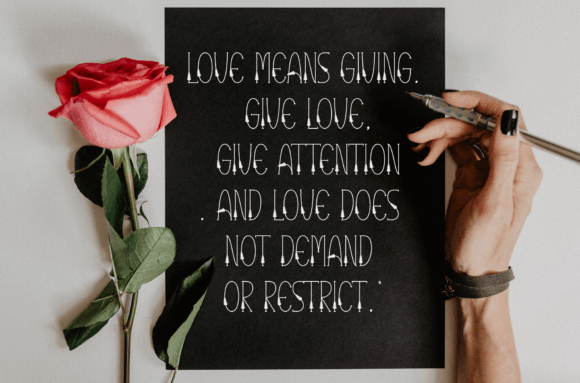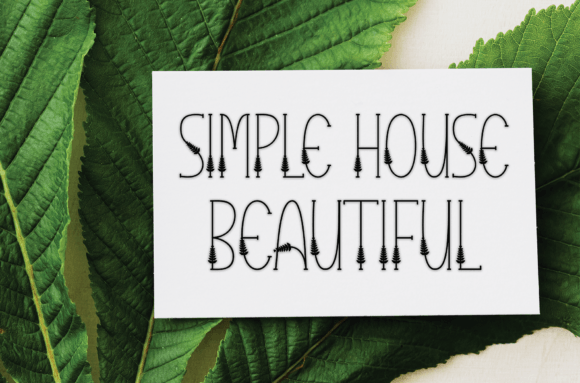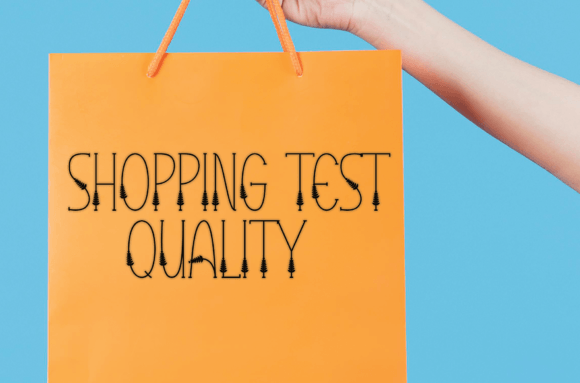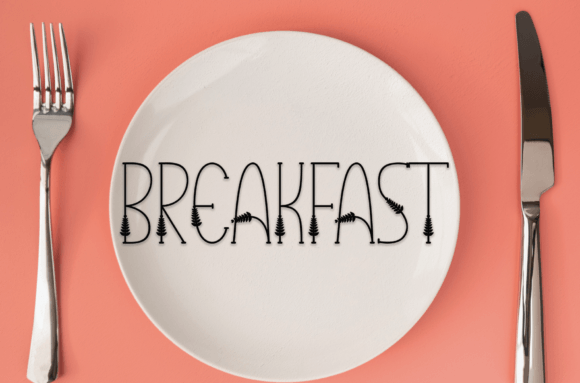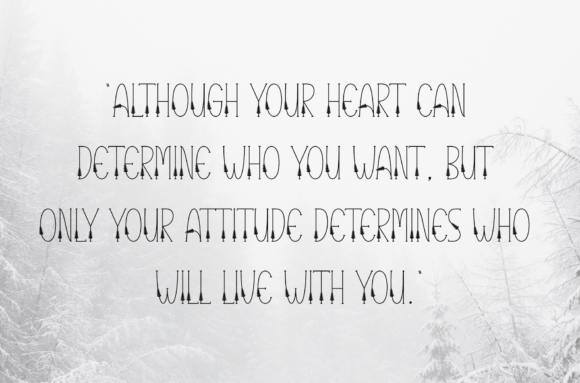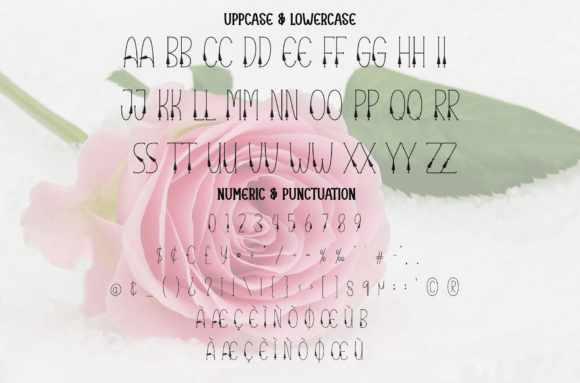
Introducing Beautiful Font: The Sweet and Friendly Handwritten Decorative Font
Are you looking for a font that can add a touch of sweetness and friendliness to your designs? Look no further than Beautiful Font, a stunning handwritten decorative font that’s perfect for a variety of creative projects. In this article, we’ll explore the features and benefits of Beautiful Font, and show you how it can elevate your designs to the next level.
What is Beautiful Font?
Beautiful Font is a beautiful, sweet, and friendly handwritten decorative font that’s designed to bring a touch of fun and playfulness to your designs. With its fresh and neat style, this font is ideal for writing wedding invitations, cards, or any other design that might need a personal and whimsical touch.
Key Features of Beautiful Font
- Handwritten style: Beautiful Font has a lovely handwritten style that’s perfect for creating personal and unique designs.
- Sweet and friendly: This font has a warm and inviting feel that’s sure to make your designs stand out.
- Fresh and neat: The clean and crisp lines of Beautiful Font make it easy to read and perfect for a variety of design applications.
- Versatile: This font can be used for a wide range of design projects, from wedding invitations and cards to posters, flyers, and more.
Benefits of Using Beautiful Font
So why choose Beautiful Font for your next design project? Here are just a few benefits of using this lovely font:
- Adds a personal touch: With its handwritten style, Beautiful Font can add a personal and unique touch to your designs.
- Perfect for special occasions: This font is ideal for wedding invitations, birthday cards, and other special occasion designs.
- Easy to read: The clean and crisp lines of Beautiful Font make it easy to read, even at small sizes.
- Versatile: This font can be used for a wide range of design applications, from digital designs to print materials.
Design Ideas Using Beautiful Font
So what can you create with Beautiful Font? Here are a few design ideas to get you started:
- Wedding invitations: Use Beautiful Font to create stunning wedding invitations that set the tone for a beautiful and memorable wedding day.
- Birthday cards: Create personalized birthday cards with Beautiful Font that are sure to delight the birthday boy or girl.
- Posters and flyers: Use Beautiful Font to create eye-catching posters and flyers that grab attention and communicate your message.
- Digital designs: Beautiful Font can be used for a wide range of digital designs, from social media graphics to website headers.
Tips for Using Beautiful Font
Here are a few tips for using Beautiful Font in your designs:
- Use it sparingly: Beautiful Font is a decorative font, so use it sparingly to add emphasis and interest to your designs.
- Pair it with other fonts: Experiment with pairing Beautiful Font with other fonts to create a unique and visually appealing design.
- Experiment with colors: Beautiful Font looks great in a variety of colors, so don’t be afraid to experiment and find the perfect color for your design.
In conclusion, Beautiful Font is a sweet and friendly handwritten decorative font that’s perfect for adding a touch of fun and playfulness to your designs. With its fresh and neat style, this font is ideal for a wide range of design applications, from wedding invitations and cards to posters, flyers, and more. Whether you’re a designer or a crafter, Beautiful Font is a great addition to your font collection.